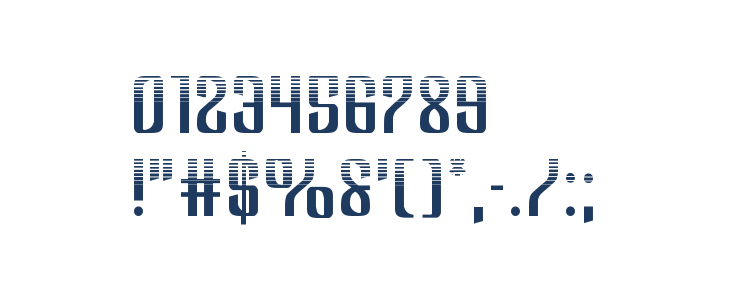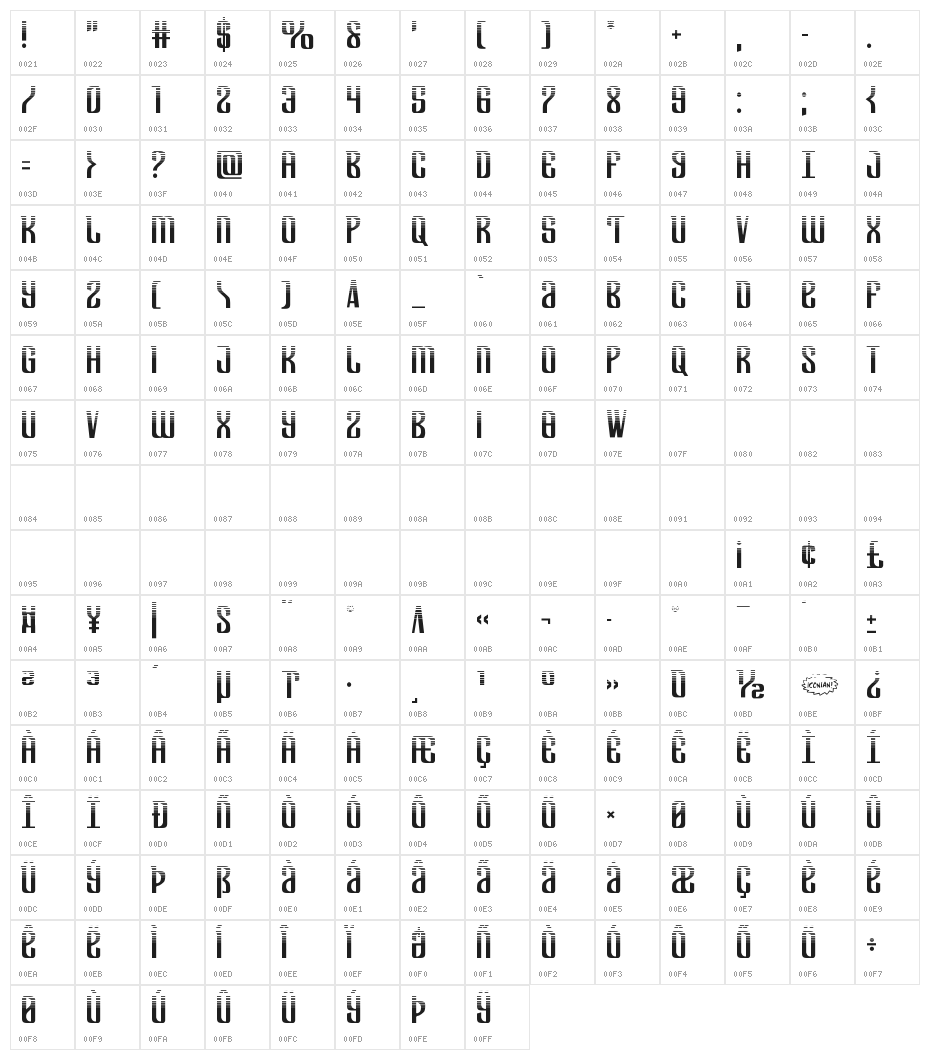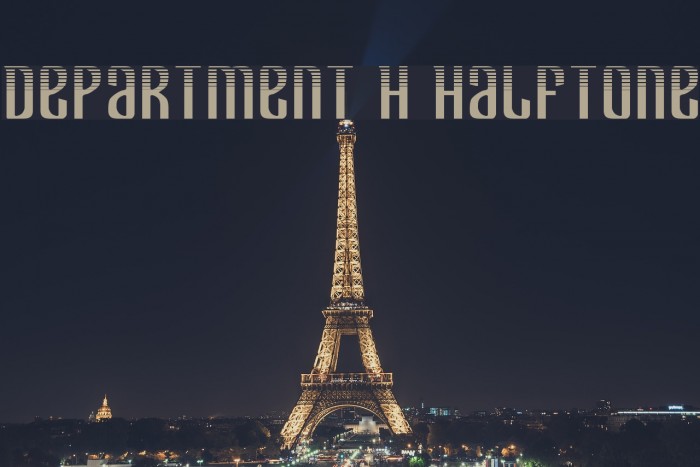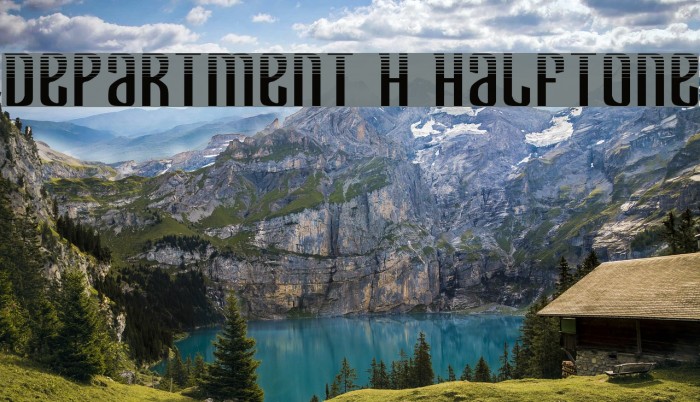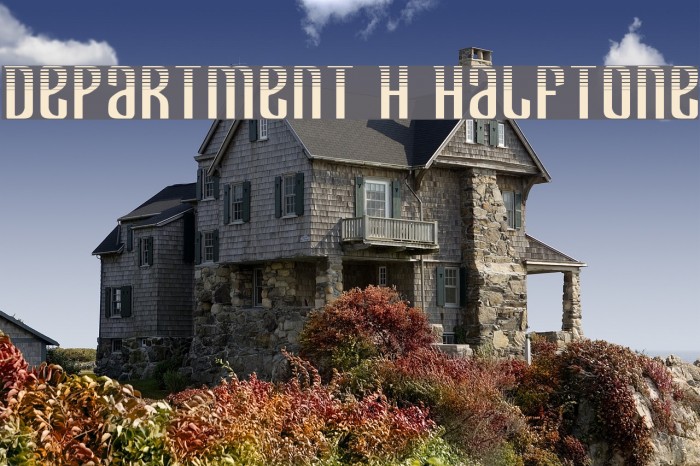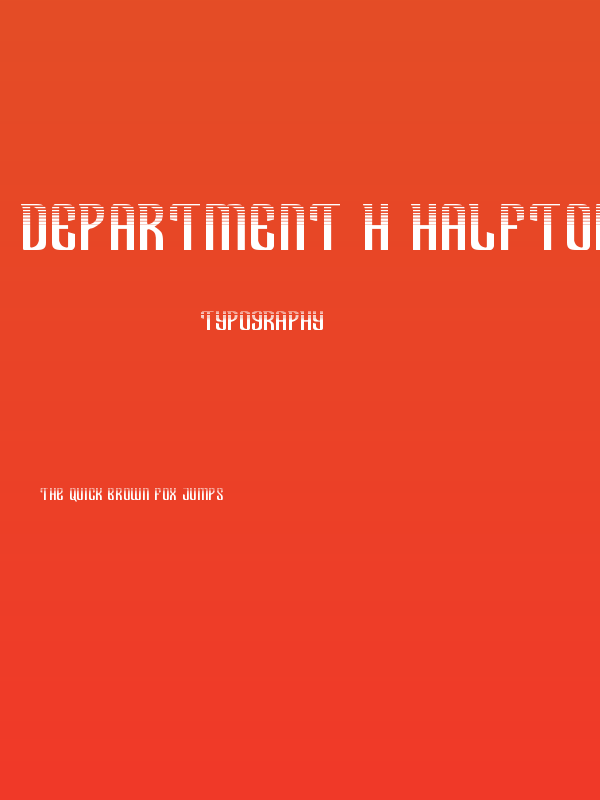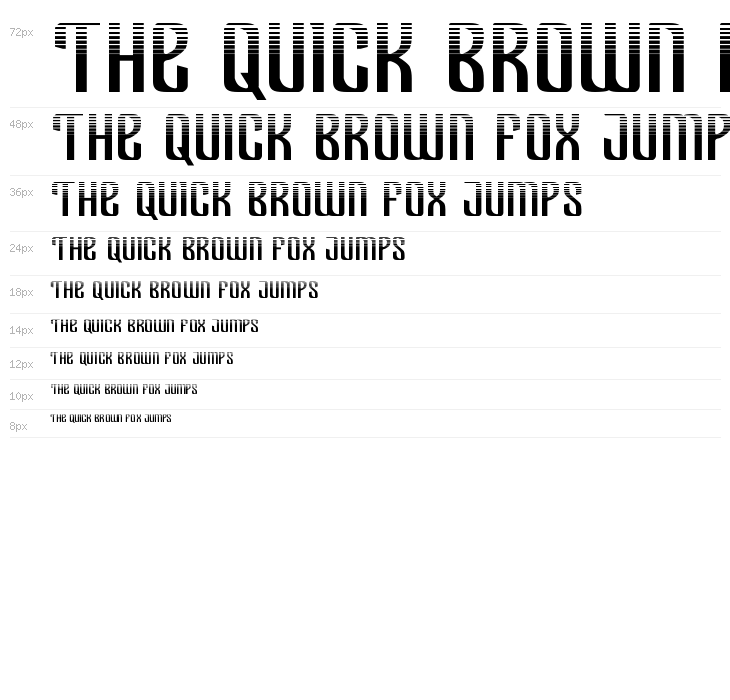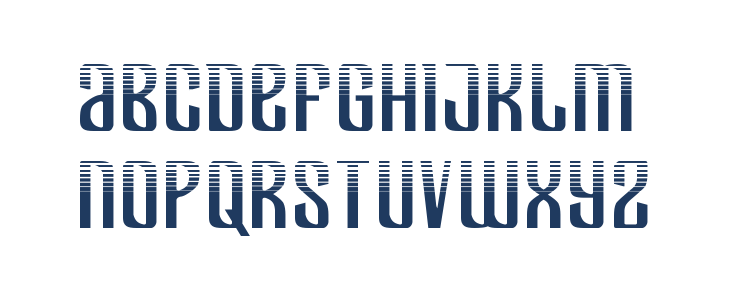
Department H Halftone Font
Department H Halftone Description
This font features a bold, decorative style with a unique halftone effect that creates a striking visual impact. The characters are designed with horizontal lines that give a sense of movement and texture, making it stand out in any design. The uppercase and lowercase letters maintain a consistent width, while the numbers and special characters follow the same stylistic approach, ensuring uniformity across all elements. The font's boldness and distinctive pattern make it ideal for projects that require a strong visual presence.
| Proposed Projects | Ideal for posters, album covers, branding, and any design requiring a bold statement. |